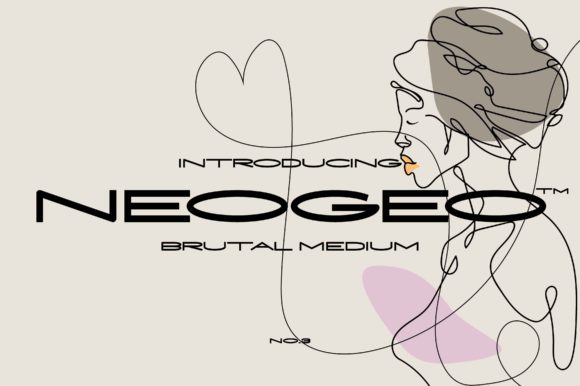
**Introducing Neogeo – Your Futuristic Font for Memorable Creations**
Welcome to the world of Neogeo, the cutting-edge sans serif typeface that will redefine your designs. Crafted with precision by the renowned Minimalistartstudio, Neogeo is meticulously designed to bring a touch of modernism and an air of intrigue to your creations.
**A Typeface that Embodies Boldness and Sophistication**
Neogeo is not just a font; it's a statement that exudes confidence and style. Its sharp edges and strong lines convey a sense of power and determination that will make your designs stand out from the crowd. Whether you're designing a sleek logo, a captivating poster, or an alluring website, Neogeo is your weapon of choice.
**Experience Unparalleled Versatility**
The beauty of Neogeo lies in its versatility. This extraordinary typeface effortlessly adapts to a wide range of design styles, making it an essential tool for any designer's arsenal. From minimalist logos that speak volumes with their simplicity to larger-than-life headings that demand attention, Neogeo rises to every occasion with grace and impact.
**Elevate Your Branding with Neogeo**
In the realm of branding, first impressions make all the difference. With Neogeo, you can create a brand identity that resonates with your audience, leaving a lasting impression that sparks recognition and loyalty. Its unique character and undeniable presence will transform your logo into a symbol of strength, innovation, and unforgettable style.
**Unleash Your Creativity**
Neogeo is not just a font; it's an open door to a world of creative possibilities. Let your imagination soar as you explore its boundless potential. Create eye-catching posters that draw attention from across the room, design brochures that captivate readers with every page, and develop websites that seamlessly blend elegance and functionality.
**A Font that Inspires Confidence**
When you choose Neogeo, you're choosing more than just a typeface; you're choosing a partner that will empower your designs with confidence and impact. Its bold lines and sharp angles convey a sense of strength and determination that will permeate every aspect of your work, inspiring trust and credibility among your audience.
**Join the Neogeo Revolution**